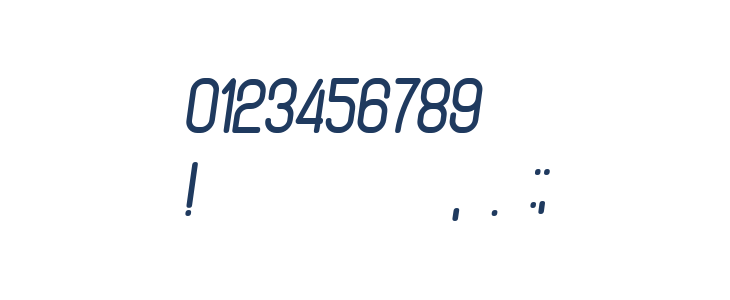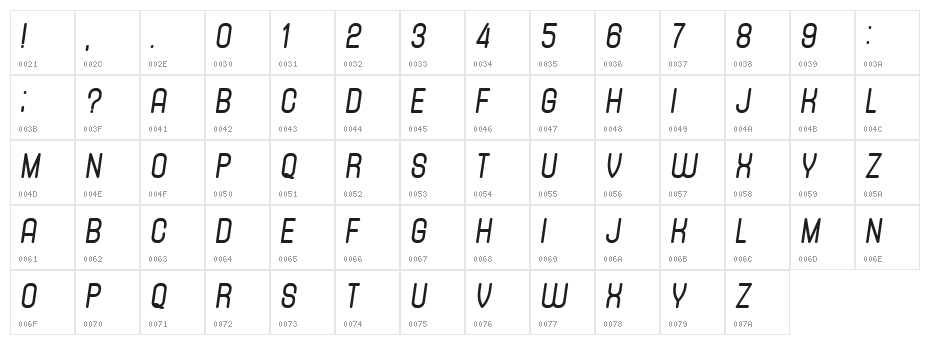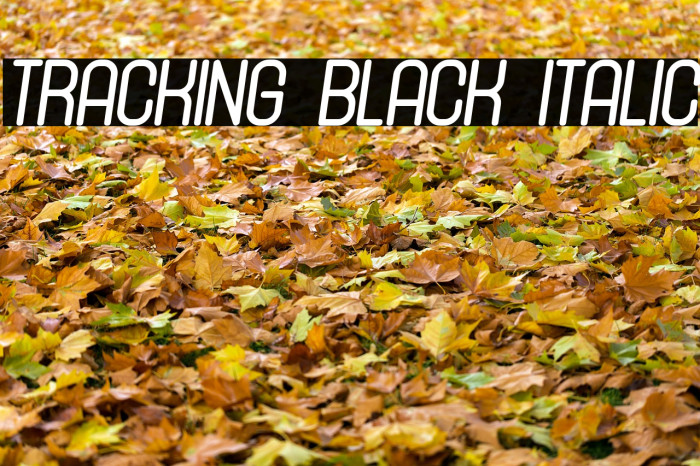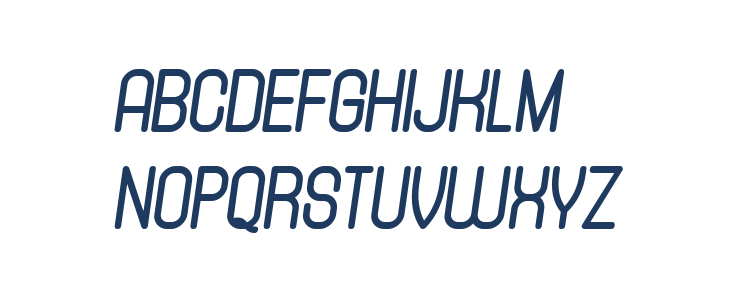
Tracking Black Italic Font
Tracking Black Italic Description
This font features a bold and italicized style with a modern and sleek appearance. The characters are elongated and slightly condensed, giving them a streamlined look. The strokes are consistent in thickness, providing a uniform and cohesive feel across all letters and numbers. The rounded edges soften the overall aesthetic, making it approachable yet professional. The italic slant adds a dynamic and energetic touch, suitable for contemporary designs. The font maintains excellent legibility, even at smaller sizes, making it versatile for various applications.